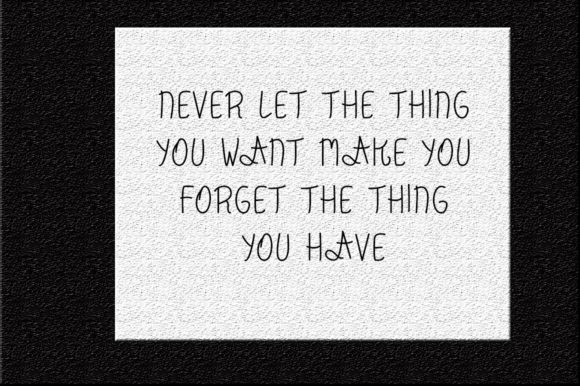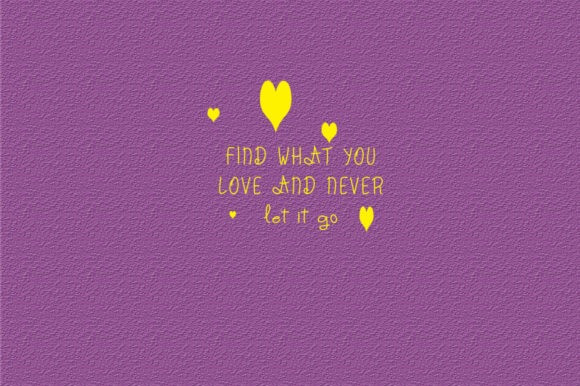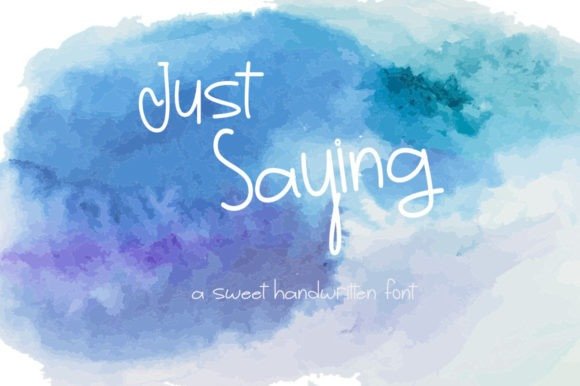
Just Saying Font
Just Saying Font is a beautiful handwritten font that works well for a variety of designs. Get inspired by its playful romantic charm! Add this lovely creation to your creations and take your designs to the next level!